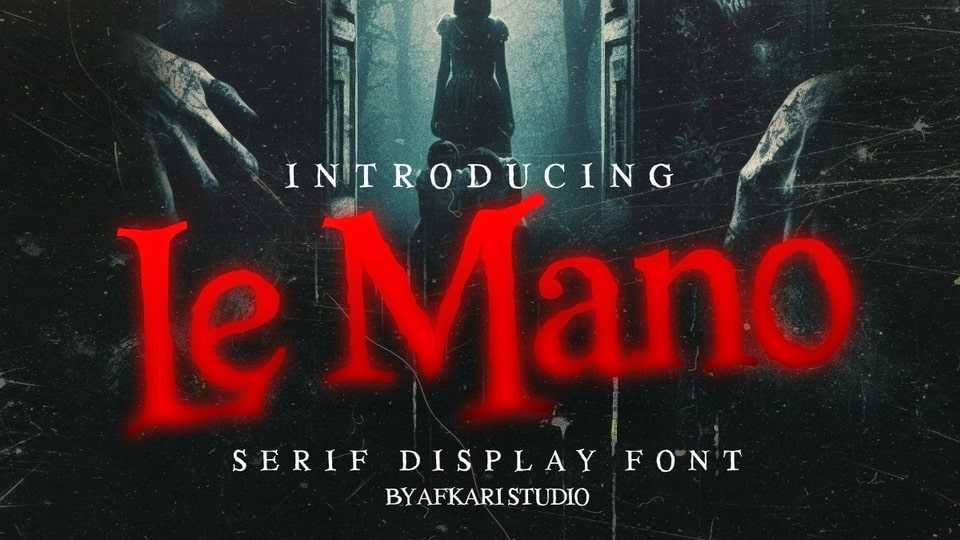
Download Le Mano font, a unique captivating serif display typeface that seamlessly blends classic elegance with modern sophistication. Crafted with precision, its graceful strokes and refined serifs exude a sense of timeless charm, making Le Mano font a versatile choice for various design projects.
Designer: Afkari Studio